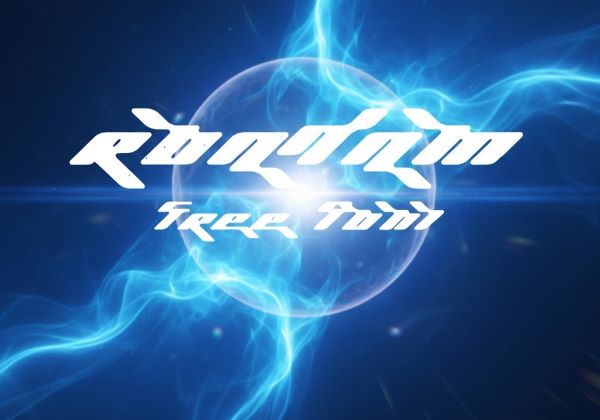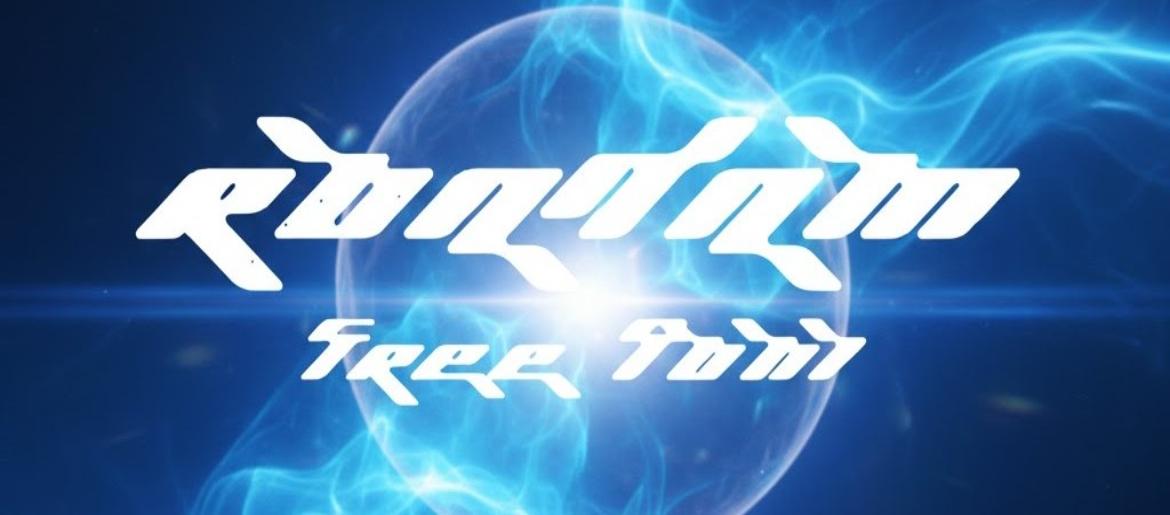
Roadam Font
Roadam Font is a display typeface designed by Hvnter, featuring a soft yet blocky structure that creates bold and energetic visuals. Its dynamic shapes make it ideal for logos, typography, posters, and fast-paced graphic designs. With its strong visual personality and modern appeal, it stands out as an attention-grabbing option within creative and impactful free fonts collections.